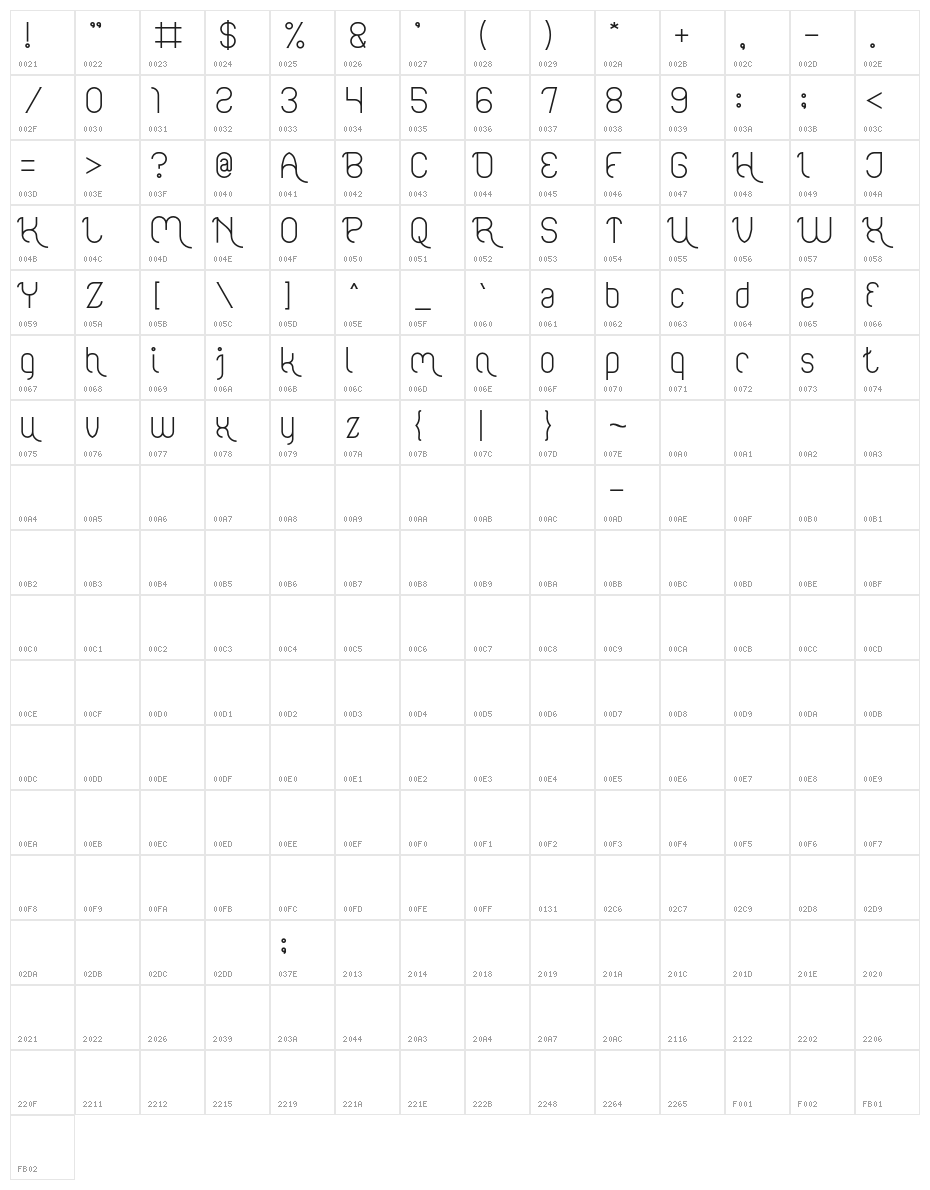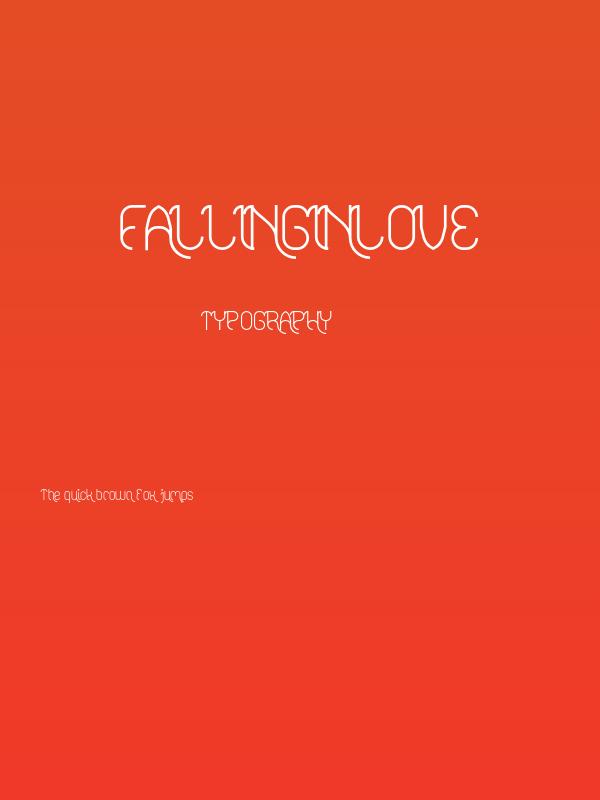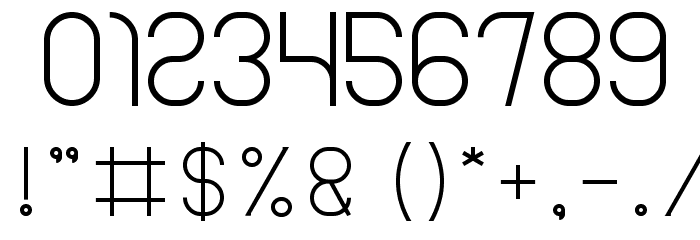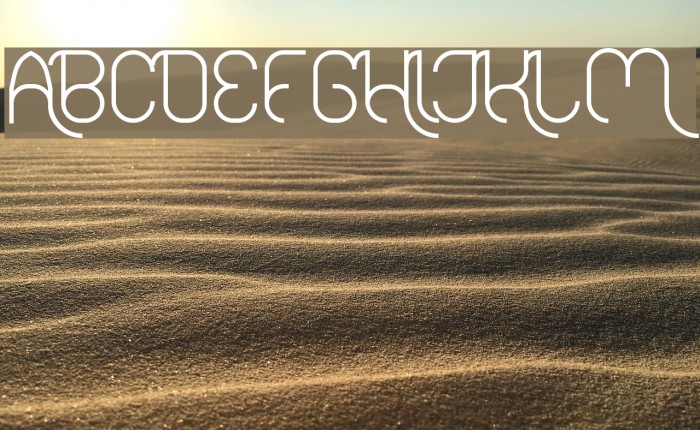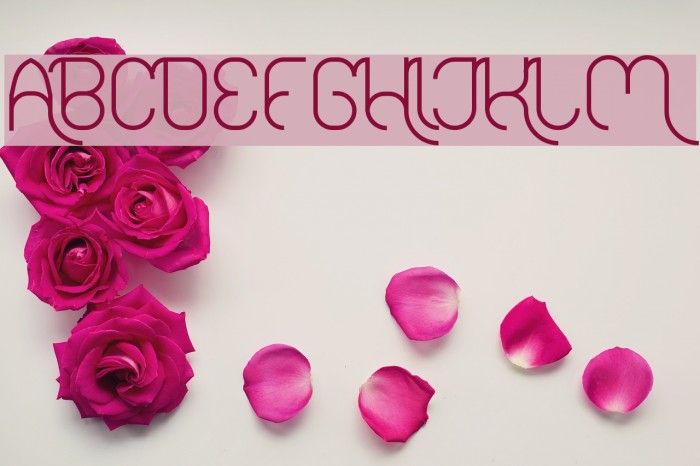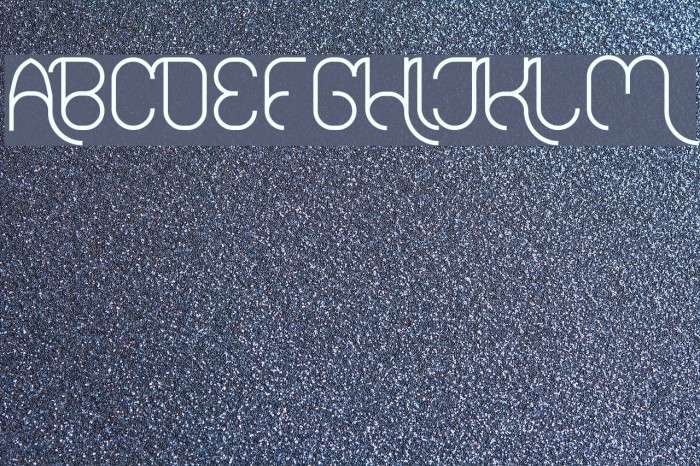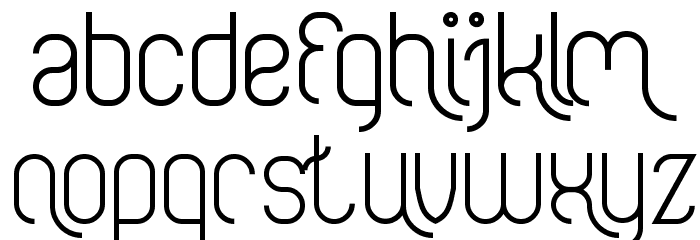
FALLINGINLOVE Font
FALLINGINLOVE Description
This font features a unique and artistic design with a modern twist. The characters are crafted with a combination of smooth curves and sharp angles, creating a visually striking appearance. The uppercase letters have a distinctive flair, with extended strokes that give them an elegant and sophisticated look. The lowercase letters maintain a consistent style, complementing the uppercase with their rounded forms and subtle embellishments. Numbers are clear and legible, designed to match the overall aesthetic. Special characters are thoughtfully integrated, maintaining the font's cohesive style. This font is perfect for projects that require a touch of creativity and modern elegance.